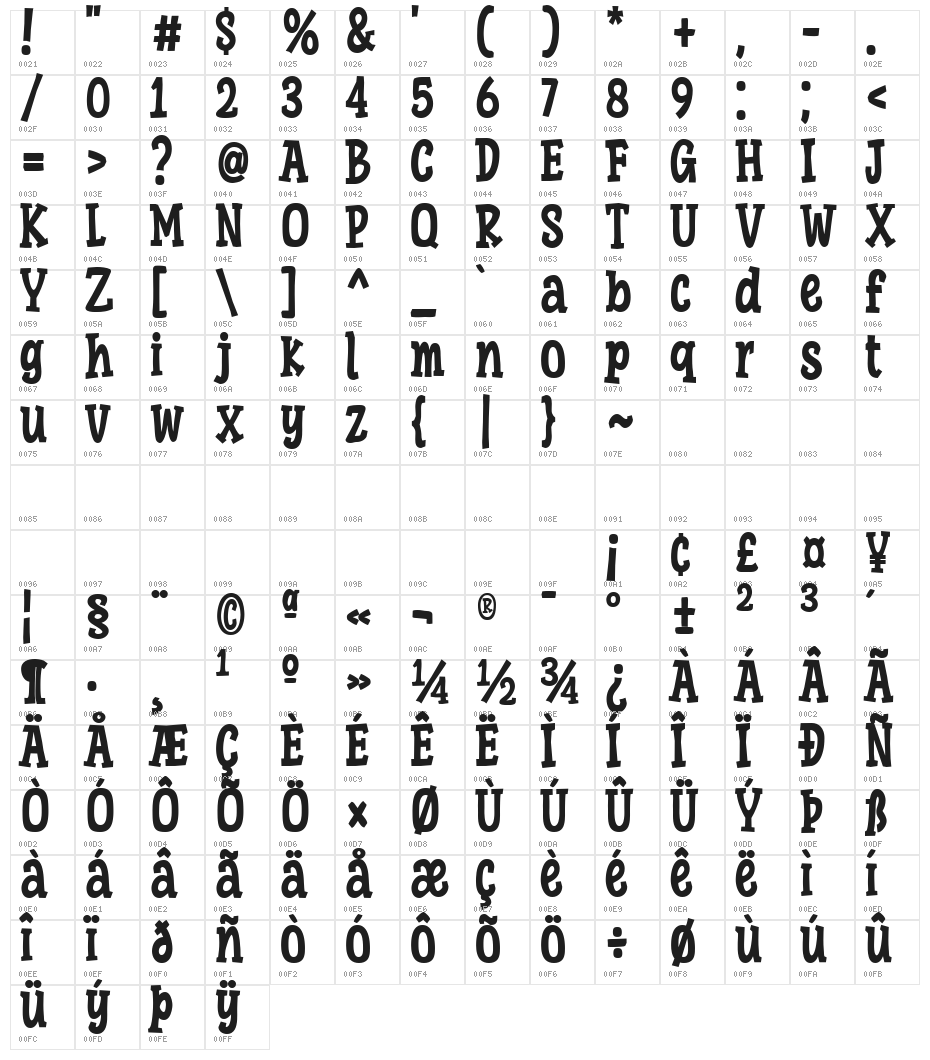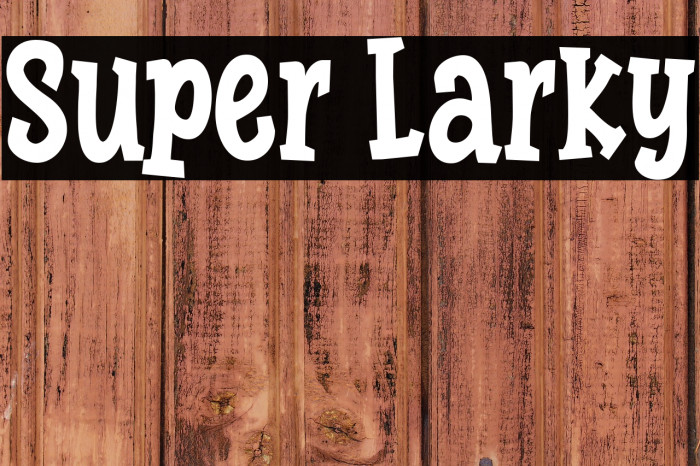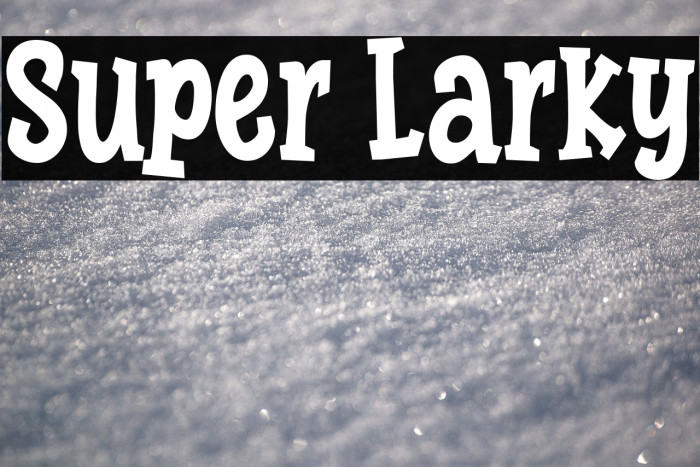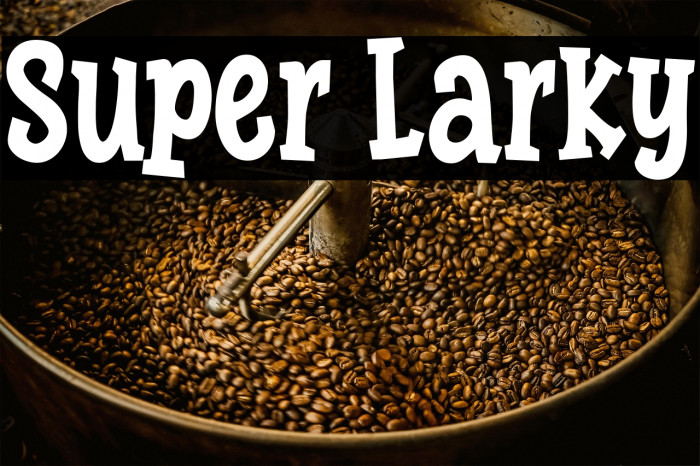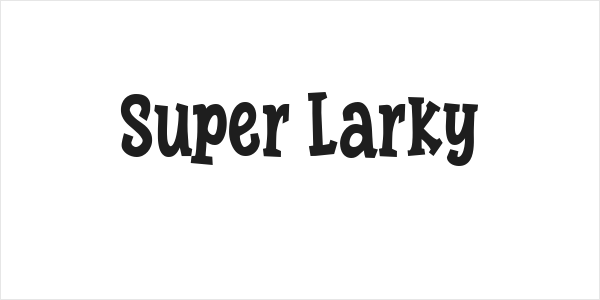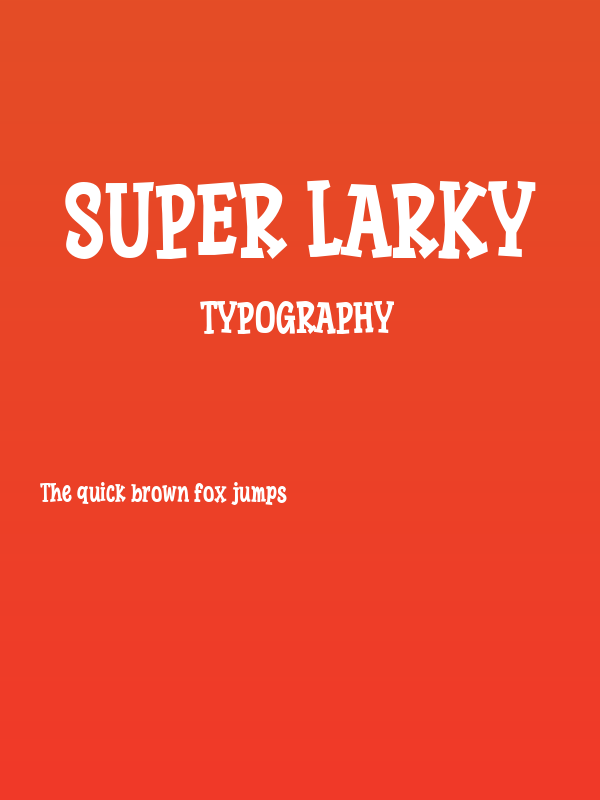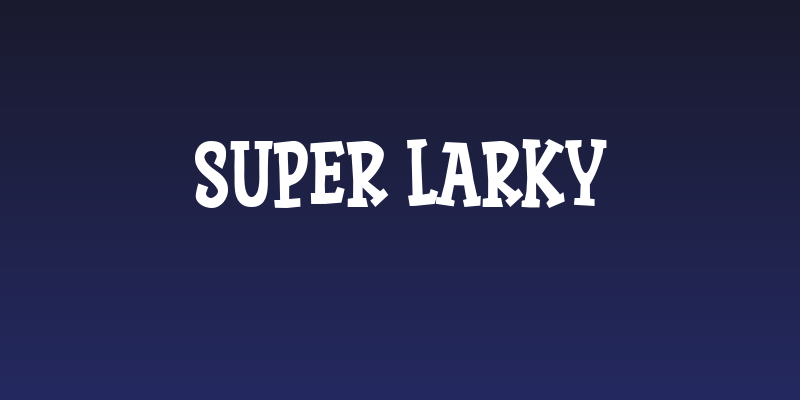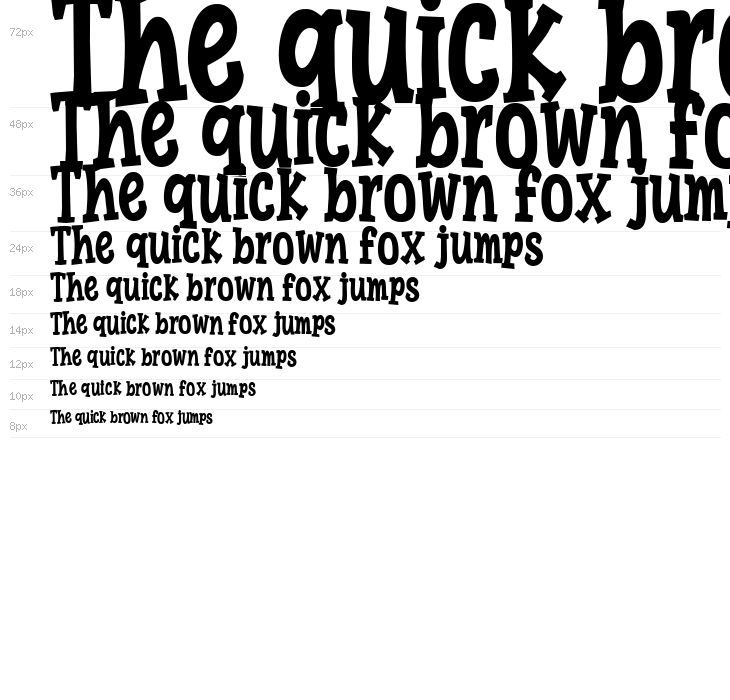
Super Larky Font
Super Larky Description
This font features a playful and bold design with exaggerated curves and a slightly uneven baseline, giving it a whimsical and dynamic appearance. The uppercase letters are robust and commanding, while the lowercase letters maintain a consistent style with a touch of irregularity that adds character. The numerals are equally bold, ensuring visibility and impact. Special characters are designed to match the overall playful theme, making them suitable for creative and informal contexts. The font's distinctive style makes it ideal for projects that require a fun and engaging visual element.
| Proposed Projects | Ideal for children's books, playful branding, posters, and creative invitations. |